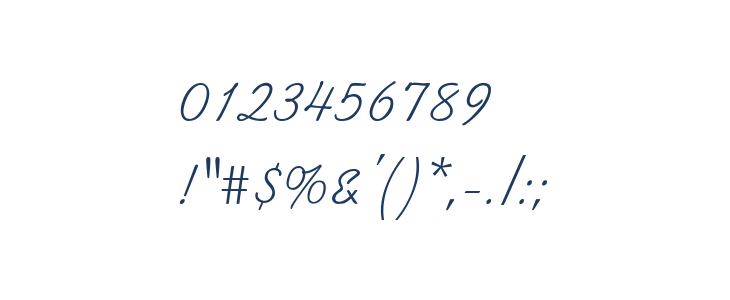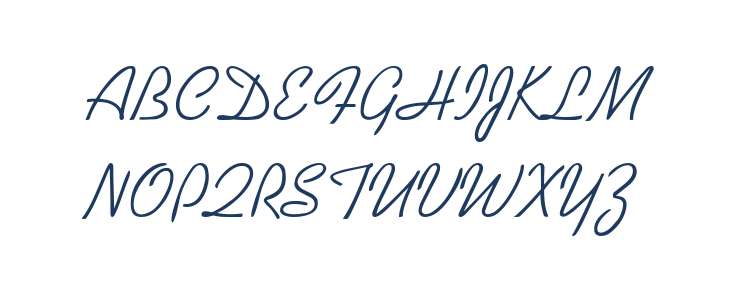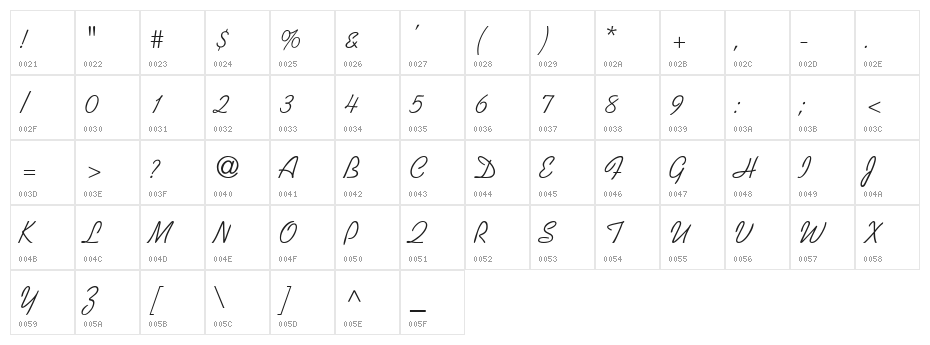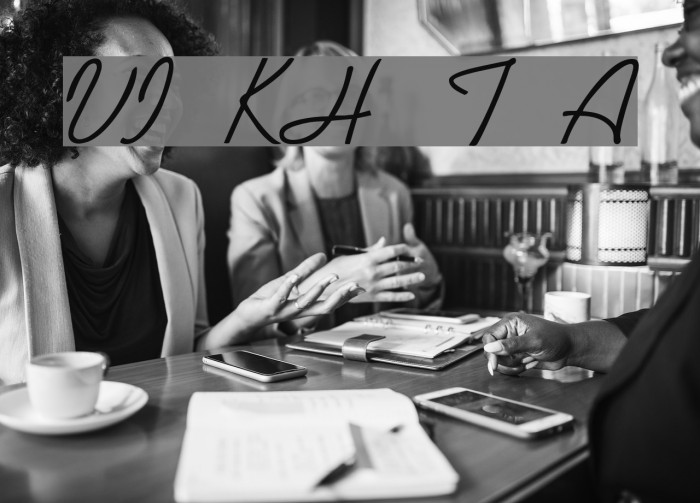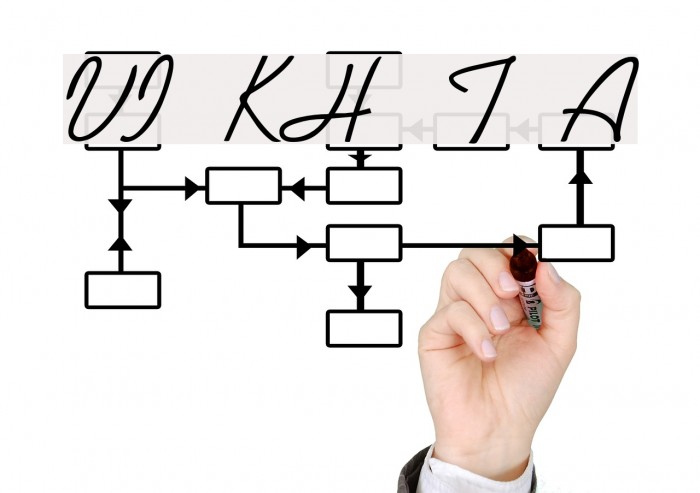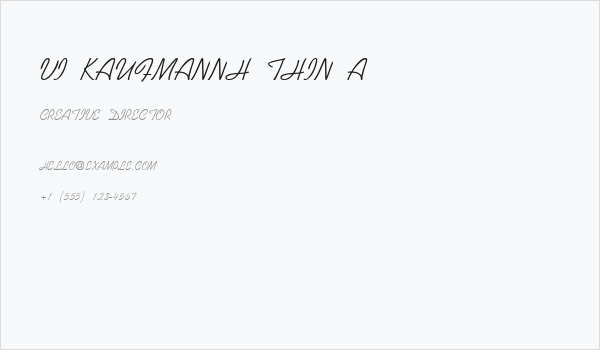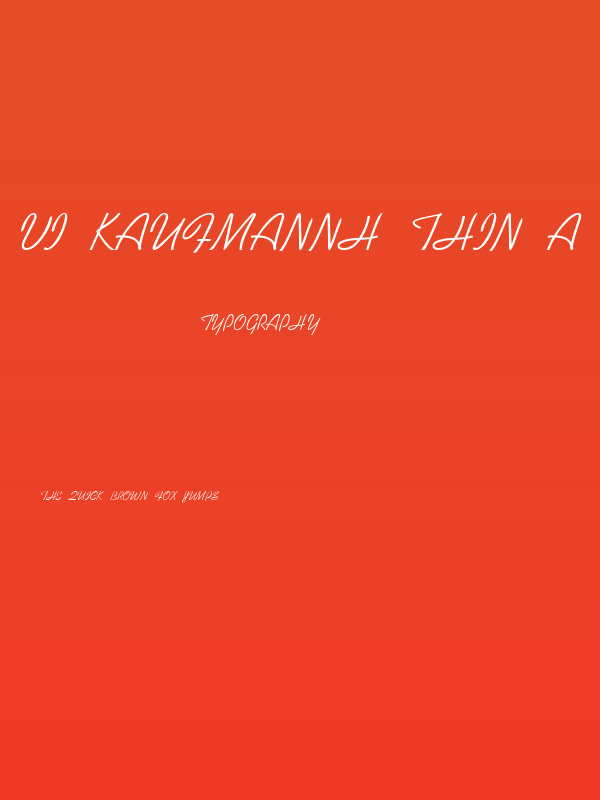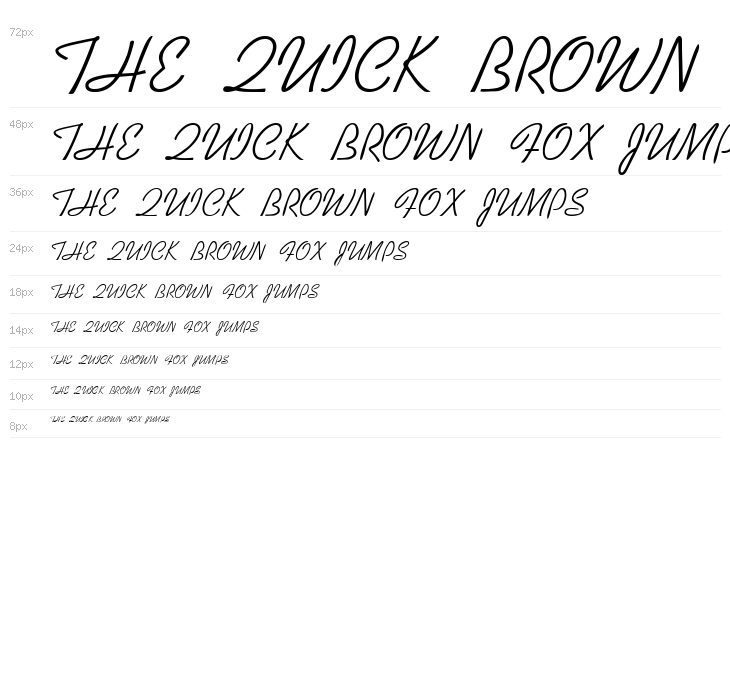
VI KaufmannH Thin A Font
VI KaufmannH Thin A Description
This font features a flowing, cursive style with elegant, sweeping lines that give it a handwritten appearance. The characters are connected, creating a seamless and fluid look that is both sophisticated and approachable. The strokes are thin, contributing to a light and airy feel. This font is particularly well-suited for projects that require a personal touch, such as invitations, greeting cards, or branding materials. Its script nature makes it ideal for conveying elegance and warmth, while the consistent slant and uniformity in character height ensure readability.
| Overall Style | Elegant, Handwritten |
| Use Case | Headlines, Invitations, Greeting Cards |
| Proposed Projects | Ideal for invitations, greeting cards, branding, and any project needing a personal, elegant touch. |